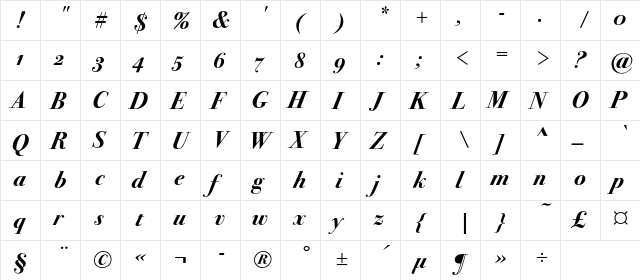
Bodoni72OSC Bold Italic
Design Context for Bodoni72OSC Typeface
Bodoni72OSC offers clean, dependable letterforms without strong stylistic allegiance, making it a practical choice for designers who need flexibility. The dynamic lean of this cut emphasises speed and emphasis in any layout. The heavy weight commands attention and anchors typographic hierarchies.
Pro Tip: Use Bodoni72OSC for emphasis, pull quotes, and subheadings where its slanted energy can add rhythm to the layout.